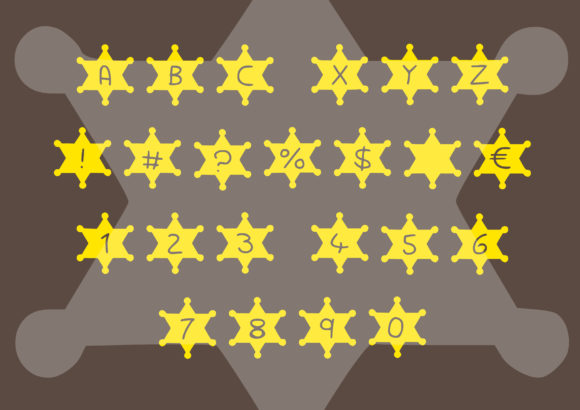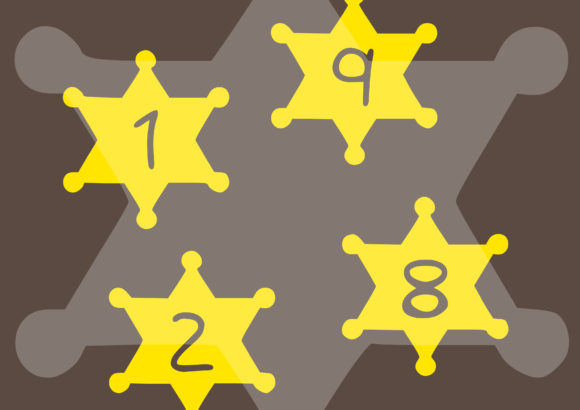
Introduction to Sherrif Play Font
As a designer, have you ever stumbled upon the perfect font that perfectly captures the essence of your creative vision? For me, that moment came when I discovered the Sherrif Play Font. I was working on a children’s game design and needed a font that would bring a sense of playfulness and whimsy to the project. After hours of searching, I finally found it – a free download that instantly transformed my design from ordinary to extraordinary.
What I love about the Sherrif Play Font is its versatility. Whether you’re working on a cartoon-related design, a children’s game, or just a creative project that requires a lovely touch, this high-quality font is an amazing choice. With its transparent background and unique aesthetic, it’s a valuable resource for designers looking to add a touch of personality to their work.
With the Sherrif Play Font, the possibilities are endless, and I’m excited to share more about this incredible design resource with you.
Key Features of Sherrif Play Font
- Features a unique, playful design with a mix of modern and vintage elements, making it perfect for projects that require a creative touch.
- Designed to be highly legible, even at small font sizes, making it ideal for use in a variety of design contexts.
- Includes a wide range of characters, including uppercase and lowercase letters, numbers, and punctuation marks, making it a versatile design resource.
Honest Review: Sherrif Play Font
I recently stumbled upon the Sherrif Play Font and was excited to try it out for my next design project. The free download was a great starting point, and I was impressed with the high quality of the font.
What works well: ✨ The font’s playful and casual vibe is perfect for creative projects, and the transparent background made it easy to integrate into my design. I also appreciated the variety of font styles and weights available, which added to the overall flexibility of the design resource.
Here are some of the key features that I liked:
- High-quality design with a playful, casual vibe
- Variety of font styles and weights
However, I did encounter some limitations: ⚠️ The font may not be suitable for formal or professional projects, and some of the characters may not display correctly in certain fonts.
Overall, I’m impressed with the Sherrif Play Font and would recommend it to designers looking for a fun and creative design resource. While it may have some limitations, the benefits far outweigh the drawbacks.
The Sherrif Play Font is perfect for a variety of creative projects, including:
- Designing logos and branding materials
- Creating custom graphics and illustrations
- Adding a touch of personality to presentations and reports